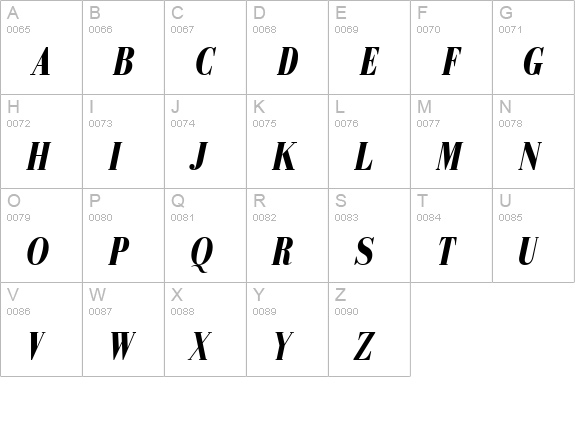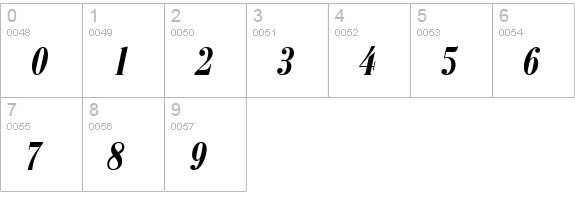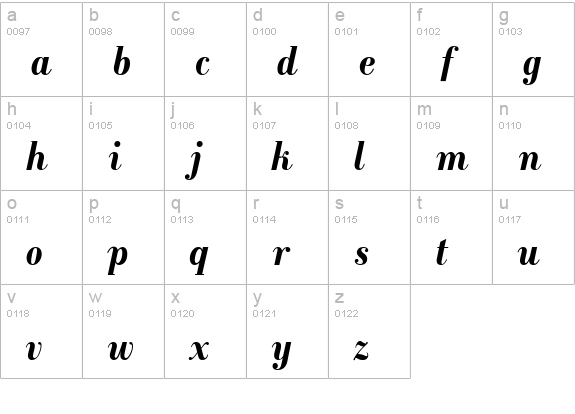
Recital SSi Bold Italic Font Details
Recital SSi Bold Italic is a strong, high-contrast, italic variant in the Recital typeface family \xE2\x80\x94 well suited to headlines, attention-grabbing titles, and strong calls-to-action.
Introducing Recital SSi Bold Italic, a stunning font that effortlessly combines elegance and creativity. With its bold and italic design, this typeface exudes sophistication and adds a touch of flair to any project. Whether you're designing a poster, creating a logo, or crafting a beautiful website, Recital SSi Bold Italic is the perfect choice to make a bold statement. Its unique and eye-catching features captivate the audience, leaving a lasting impression. But what sets Recital SSi Bold Italic apart is that it is not only visually pleasing but also freely available to download. At FontsMarket.com, you can effortlessly access this extraordinary font without spending a dime. Unleash your creativity and elevate your designs with the versatility and versatility of Recital SSi Bold Italic. Its carefully crafted curves and strokes create a harmonious balance, making it suitable for a wide range of design projects. Whether you're a professional designer or a creative enthusiast, Recital SSi Bold Italic is your ultimate companion. Its versatility and ability to make a statement ensure that it will never go unnoticed. So, don't miss out on this opportunity to enhance your design projects with the beauty and elegance of Recital SSi Bold Italic. Download it for free at FontsMarket.com and let your creativity soar to new heights.